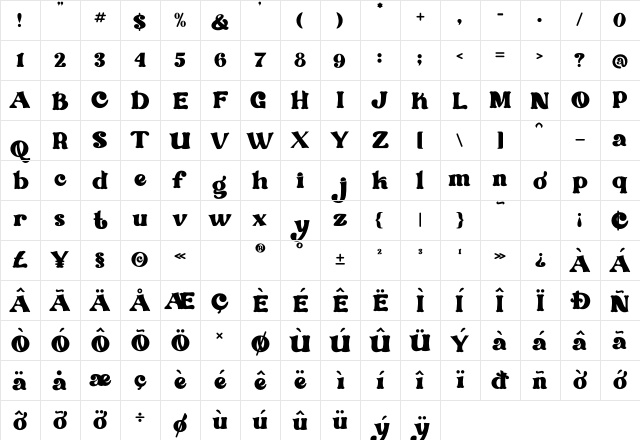
The Mount Saint Regular Free Font
The Mount Saint Regular
Foundry: Putracetol Studio, Karanganyar.
Designer: Putra Novembria Candra Kusuma
Design Context for The Mount Saint
The Mount Saint is a composed and adaptable typeface that performs quietly and consistently across a wide range of design contexts.
Pro Tip: Use The Mount Saint in both headline and body roles to test its range before committing to a single application.